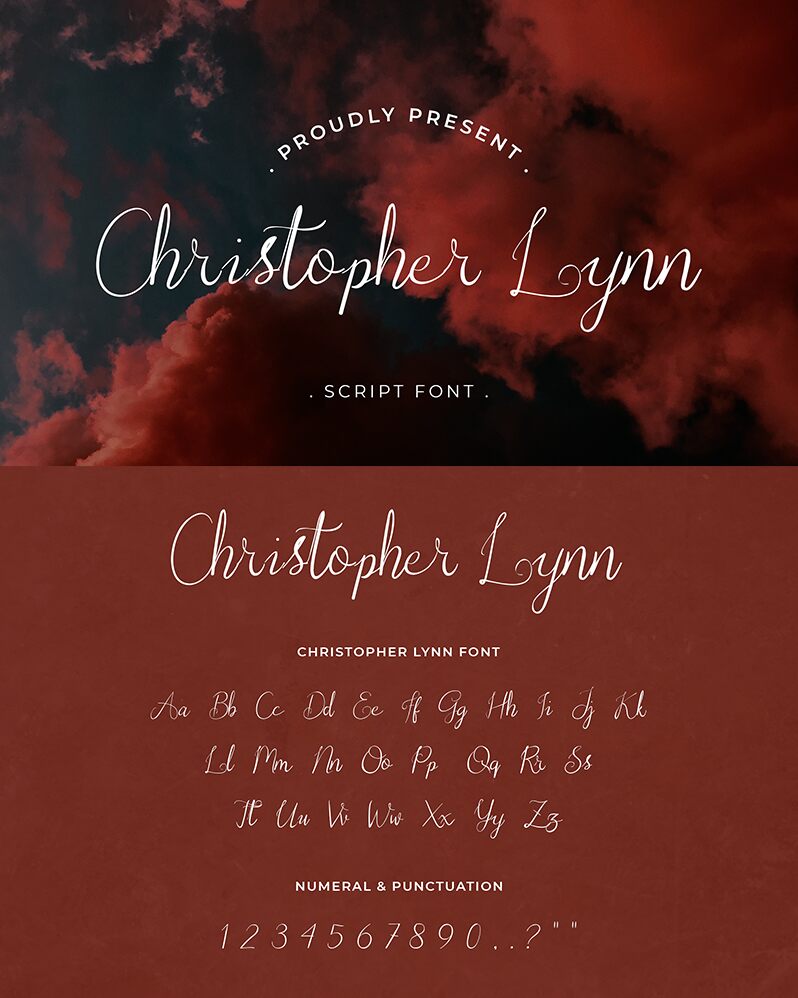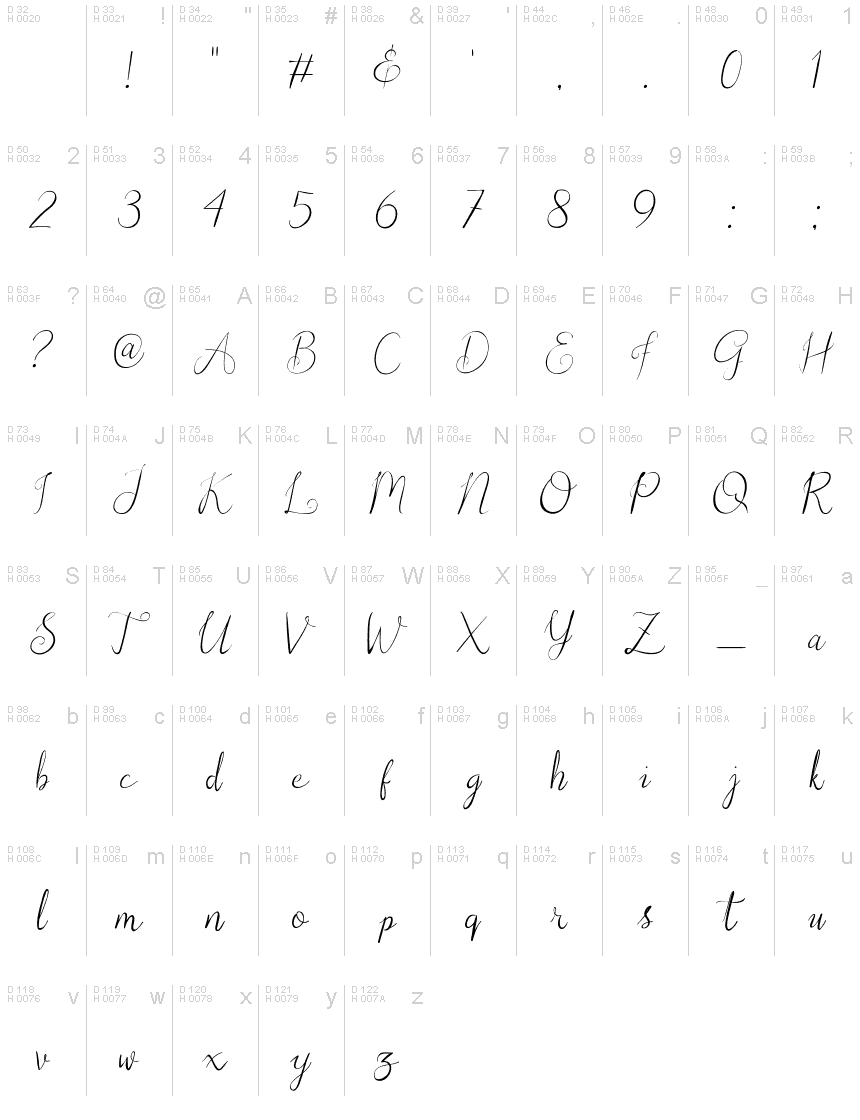
Christopher Lynn
Christoper Lynn Script is a font that offers an elegant touch of natural hand stroke. Included in the type of modern font scripts. The combination of fonts that are not the same makes this font has exclusive and artistic characteristics. It can be used for cosmetic products, clothing brands, or packaging products for coffee drinks and craft labels. it can also be used for wedding invitations, photography, or for the purpose of brand logos. Try and feel the distinctive and elegant touch of this font.